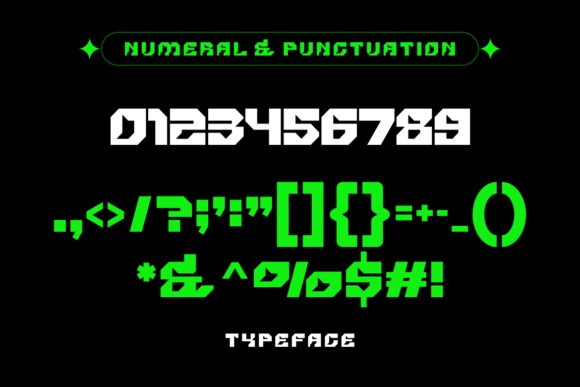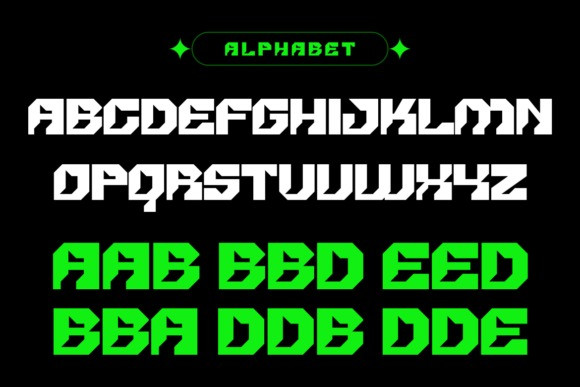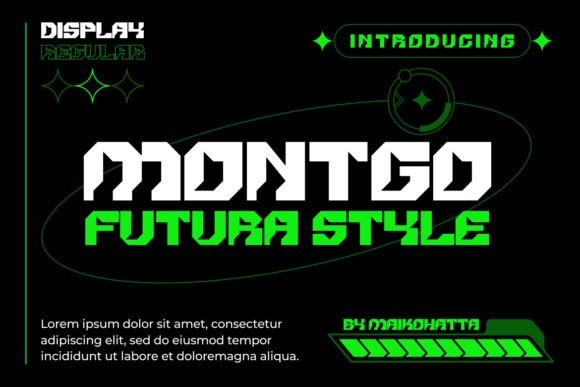
Montgo Font
Montgo Font is a modern font with a futuristic feel. Grab this bold font and make your design projects shine. You can create t-shirt printing, logos, randing, posters, invitations, and more. Outstanding in a wide range of contexts.